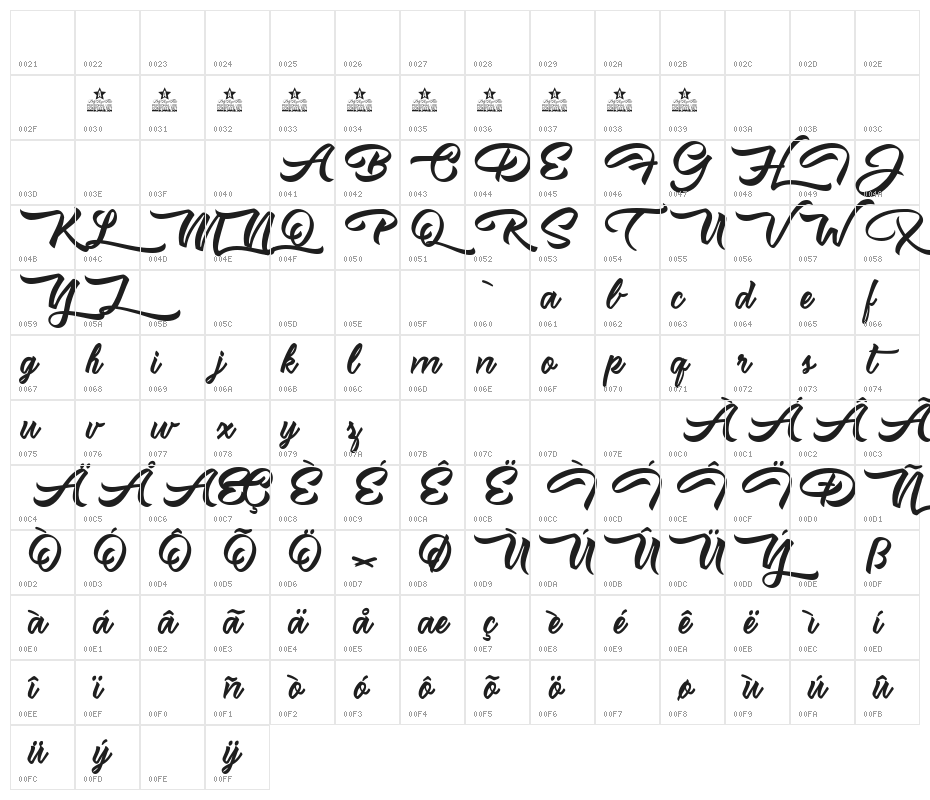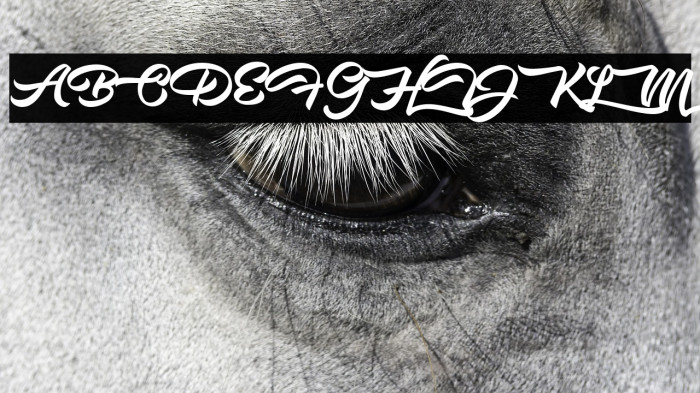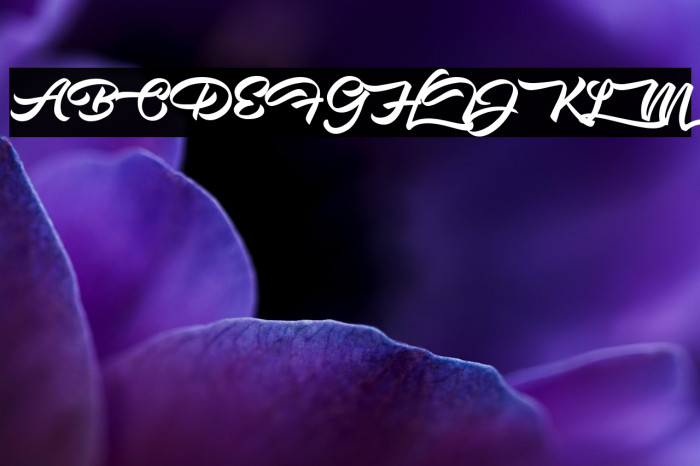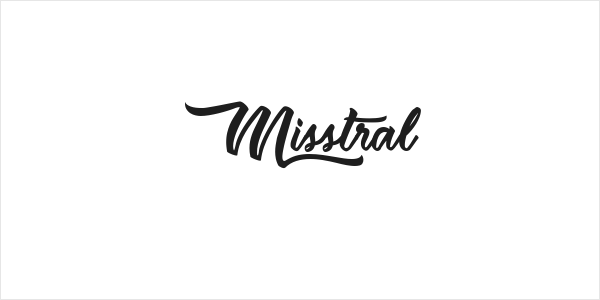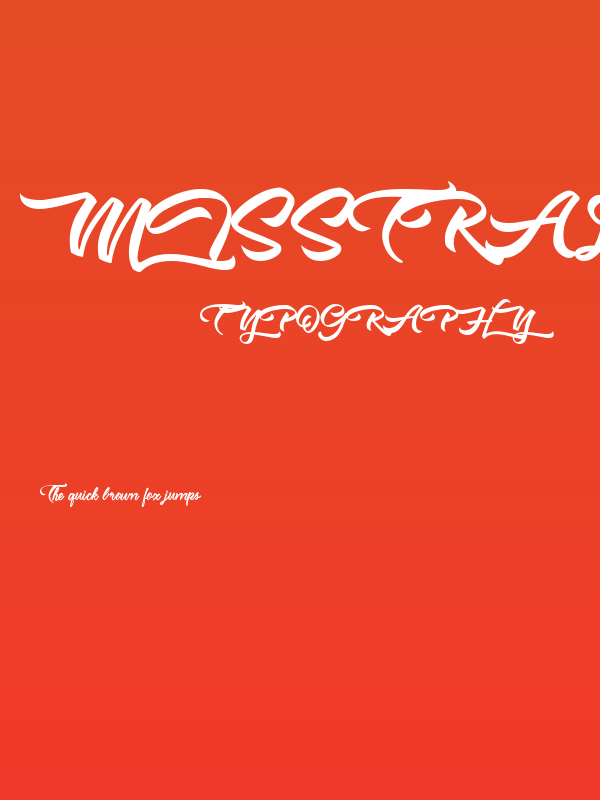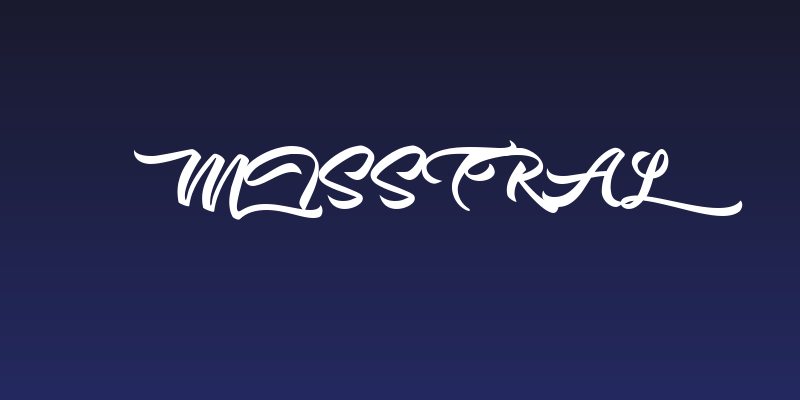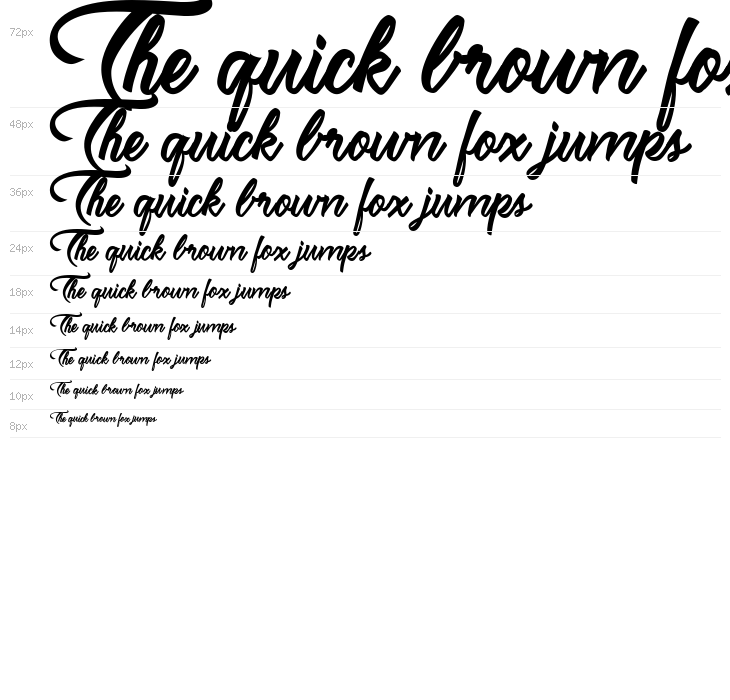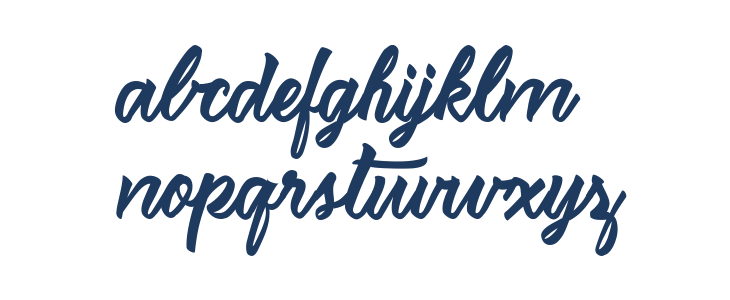
Misstral Font
Misstral Description
This font exhibits a flowing, cursive style with a strong emphasis on elegant, sweeping strokes. The uppercase letters are intricately connected, creating a sense of fluidity and movement. The lowercase letters maintain a consistent style, with smooth curves and a balanced weight. The font's bold appearance is complemented by its high contrast between thick and thin strokes, enhancing its readability while retaining a decorative flair. The overall design is reminiscent of traditional calligraphy, making it suitable for projects that require a touch of sophistication and elegance.
| Proposed Projects | Ideal for wedding invitations, elegant branding, greeting cards, and decorative headlines. |